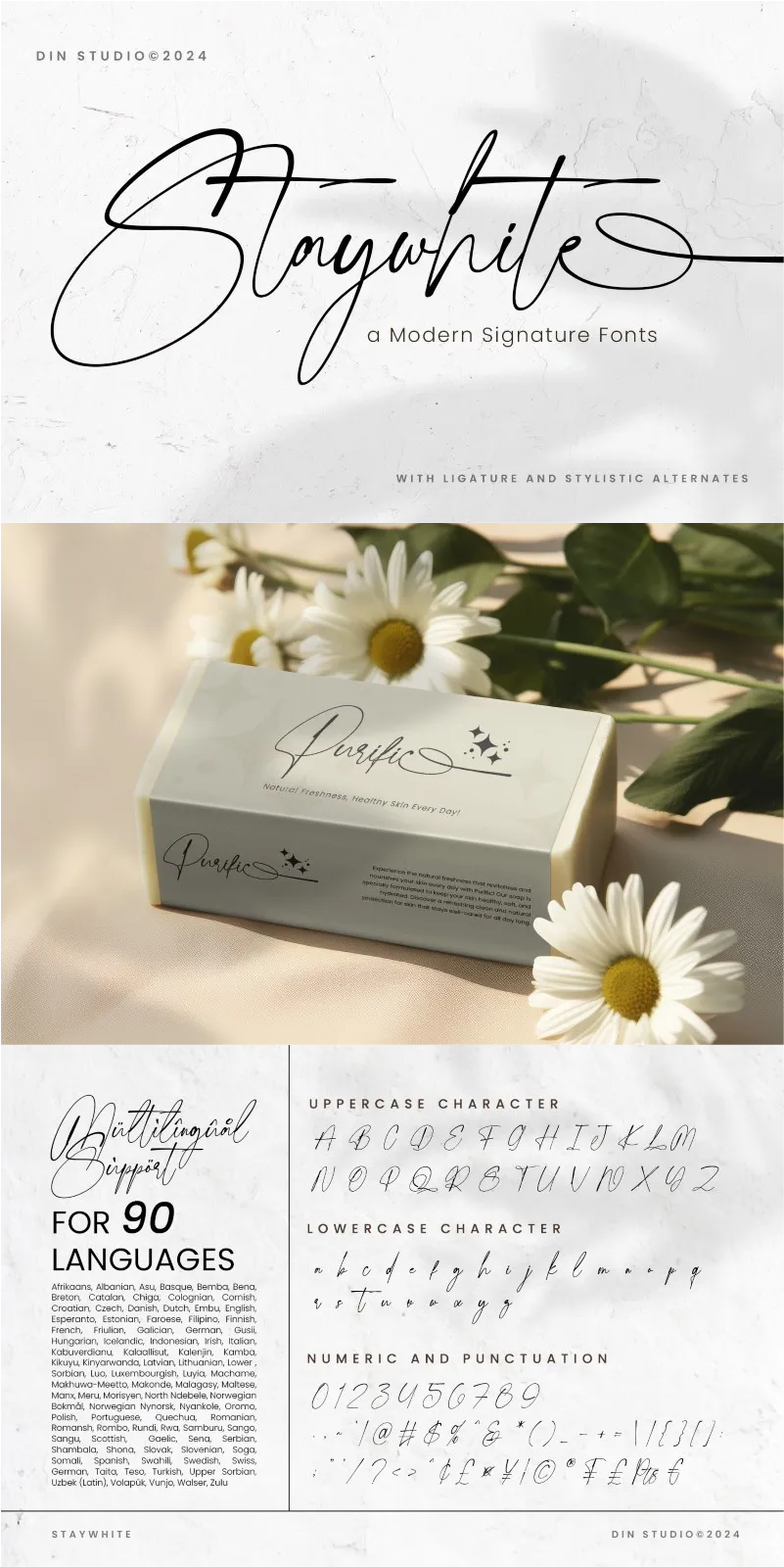
Staywhite Font
About Staywhite
Staywhite is an elegant script font crafted with a beautiful signature style. Made with graceful swirls and seamlessly connected letters, this font flows effortlessly across your designs. The visible contrast in each stroke adds a dynamic and refined look. Staywhite brings an air of elegance and individuality to every word. In addition, enjoy the features here.
- Standard & Discretionary Ligatures
Staywhite fits in headlines, logos, posters, branding materials, packaging, print media, editorial layouts, and many more designs. Find out more ways to use this font by taking a look at the font preview.